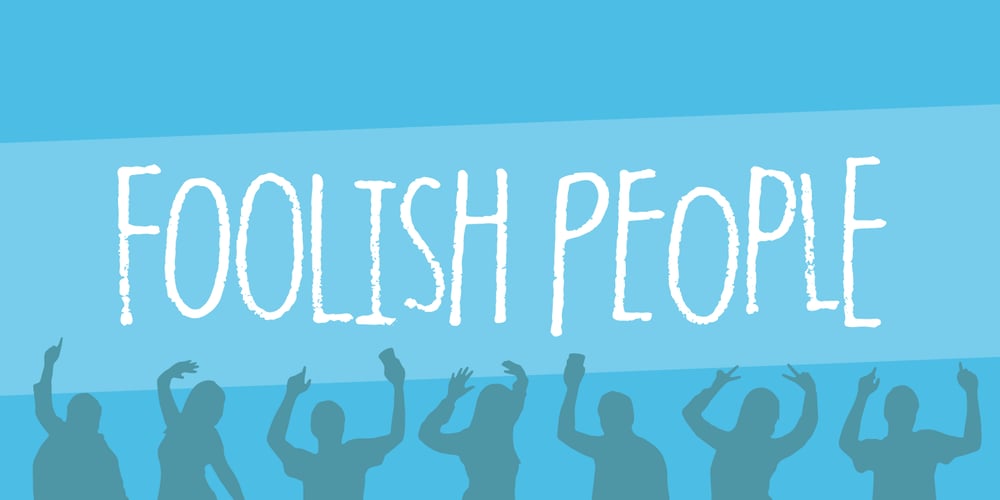
Foolish People Font Family was designed by Jakob Fischer and published by PizzaDude.dk. Foolish People contains 2 styles and family package options. Nothing foolish about this font – but loads of character! Crunchy edges, contextual alternates and lots of accented characters.